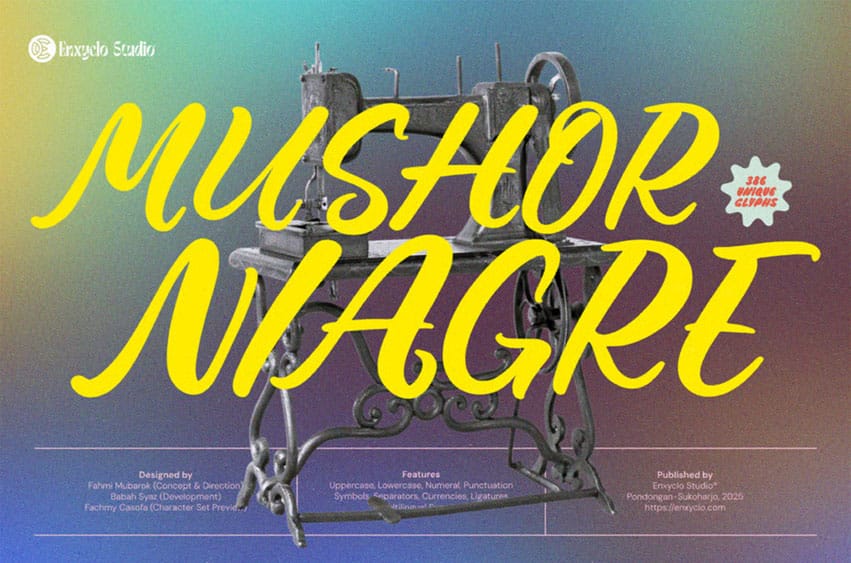
Mushor Niagre Font is an expressive brush script font with a strong vintage and handmade feel. Inspired by classic handwritten styles full of character, this font delivers a dynamic yet elegant impression, perfect for design projects that aim to stand out with style and class. Mushor Niagre offers flexibility and uniqueness to strengthen your brand’s visual identity. Ideal for retro-themed designs, fashion editorials, handmade product labels, or branding that seeks a truly authentic touch.
- 386 Unique Glyphs
- Ligatures & Symbols
- Currency Support
- Multilingual Characters
- Vintage-themed Branding & Logos
- Poster & Flyer Retro Style
- Packaging Design
- Handcrafted Product Labels
- Editorial Titles & Magazine Covers
- Wedding Invitations with a Classic Touch
- Social Media Graphics with Personal Flair
Whether you’re a designer looking to inject character into your visuals, a content creator aiming to make a statement, or a brand builder wanting to express a unique voice, Mushor Niagre is your go-to creative tool.